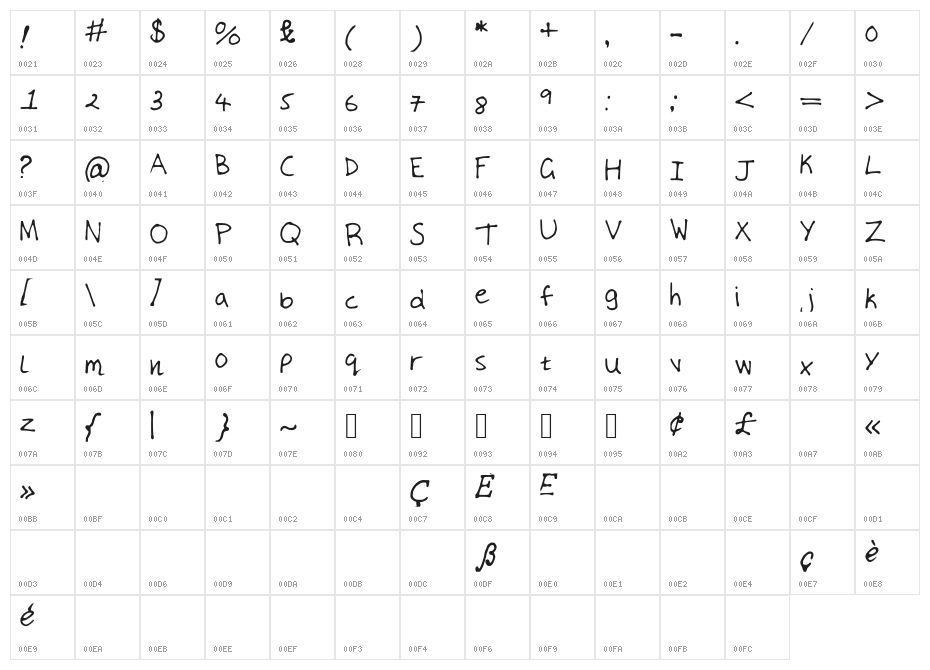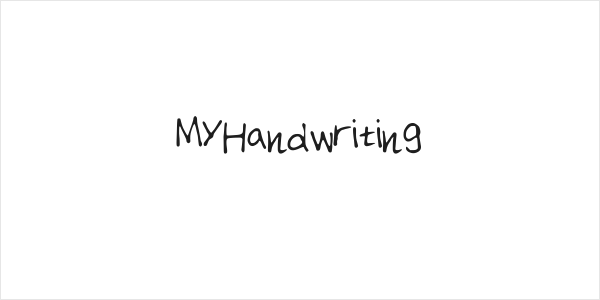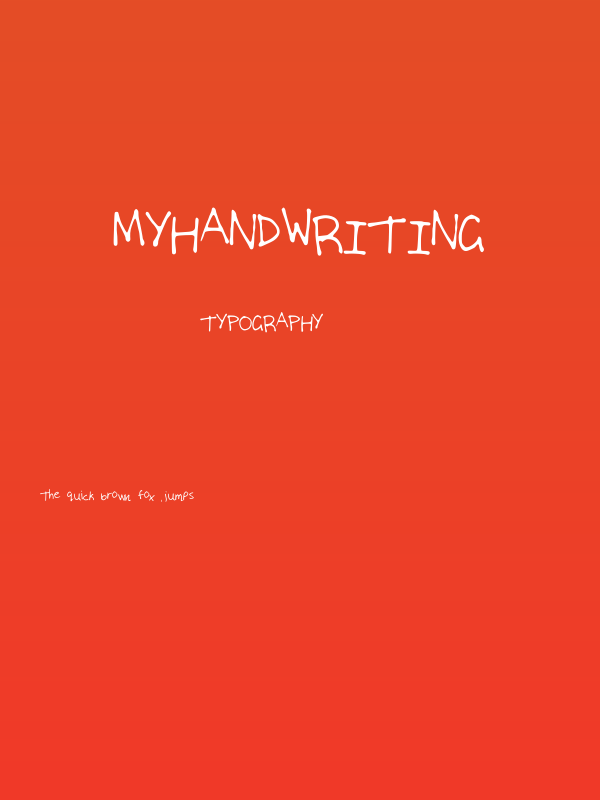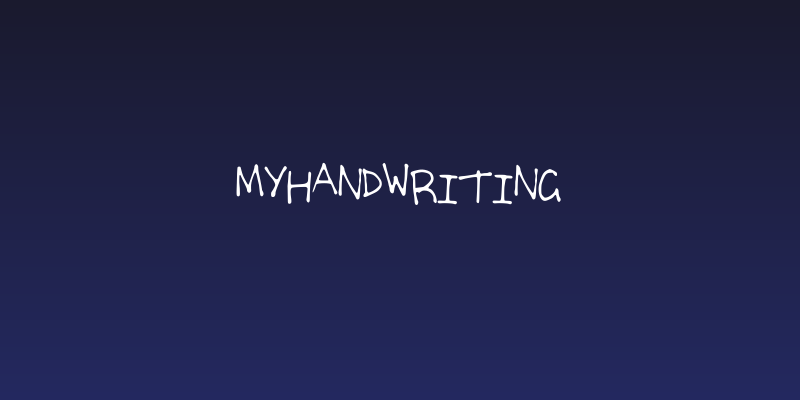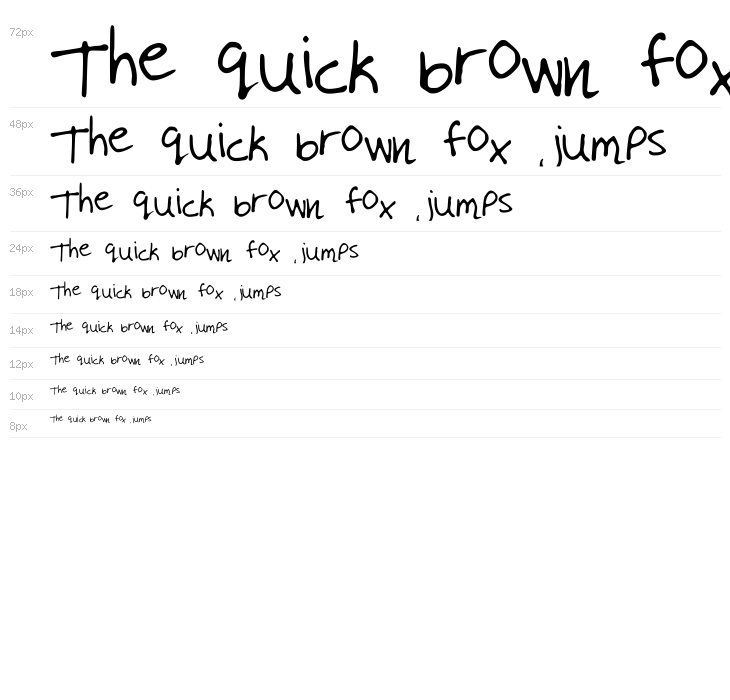
MyHandwriting Font
MyHandwriting Description
This font exudes a casual and personal touch, reminiscent of natural handwriting. The letters are slightly irregular, giving it an authentic and approachable feel. The strokes are smooth and rounded, with a playful yet legible appearance. It captures the essence of handwritten notes, making it ideal for projects that require a personal or informal tone. The font maintains consistency in its style across both uppercase and lowercase letters, as well as numbers and special characters. Its charm lies in its simplicity and the warmth it conveys.
| Use Case | Headlines, Informal text, Personal notes |
| Proposed Projects | Perfect for personal notes, invitations, greeting cards, and informal branding. |